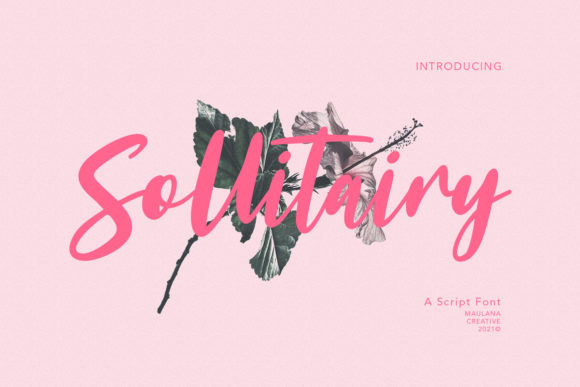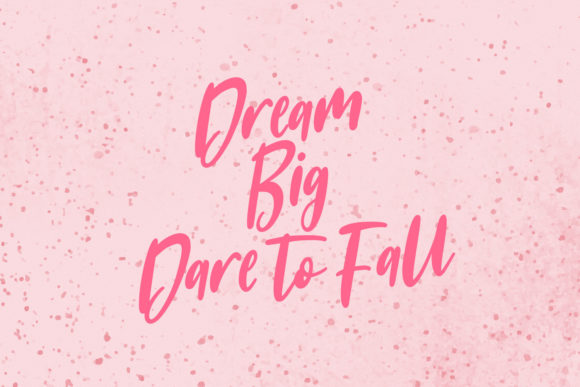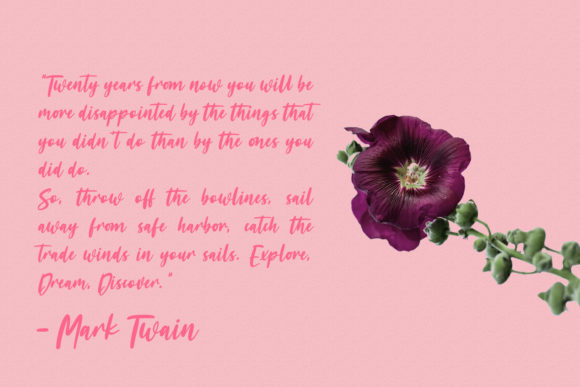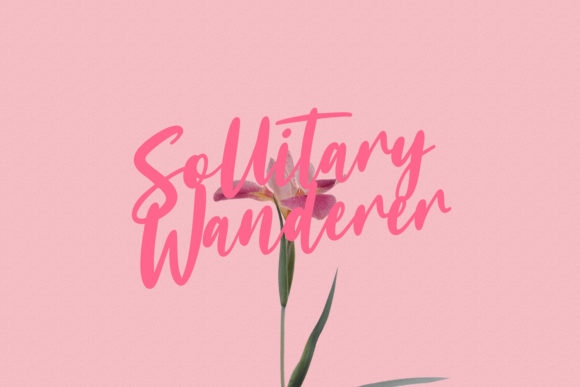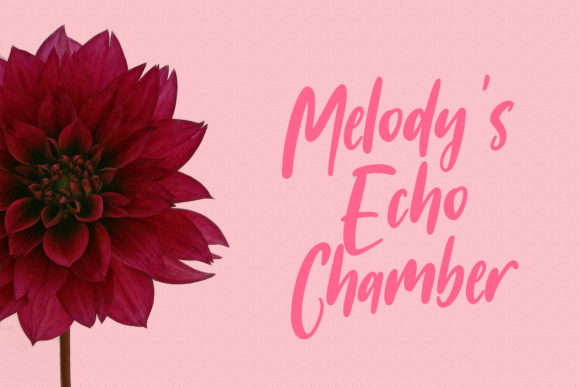
About Sollitairy Script Font
Introducing Sollitairy Script, a beautiful and stylish script font that exudes elegance and sophistication. With its smooth curves and flowing lines, this font is perfect for fashion branding, editorial designs, and any project that requires a touch of luxury.
Sollitairy Script captures attention with its graceful letterforms and balanced proportions. Each character is meticulously crafted to create a harmonious and visually pleasing look. The script style adds a sense of fluidity and movement, making it a perfect choice for projects that aim to convey a sense of grace and sophistication.
Whether you’re designing a logo, creating a fashion brand identity, or working on an editorial layout, Sollitairy Script will elevate your designs to new heights. Its versatility allows it to adapt seamlessly to different design contexts, from high-end fashion labels to elegant wedding stationery.
The smooth curves and delicate lines of Sollitairy Script lend a touch of refinement and class to your projects. It evokes a sense of timeless beauty and captures the essence of elegance. With its stylish and sophisticated appearance, this font will leave a lasting impression on your audience.
You can confidently add Sollitairy Script to your projects, knowing that it will enhance the overall aesthetic and elevate your designs. Its versatility and beauty make it a valuable asset in your font collection, allowing you to create stunning and memorable designs that stand out from the crowd.
So, whether you’re designing for the world of fashion, editorial publications, or any other creative endeavor, let Sollitairy Script be your go-to font for adding a touch of elegance and style to your designs.